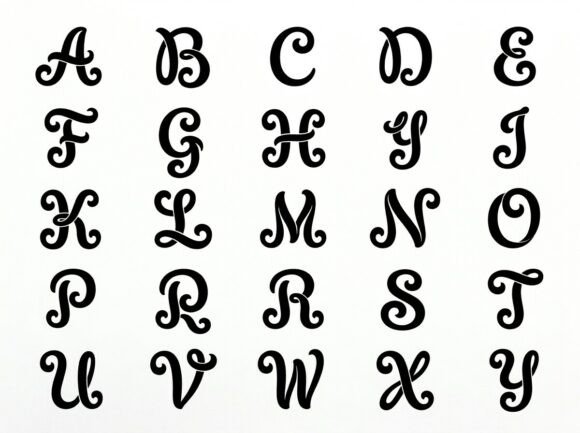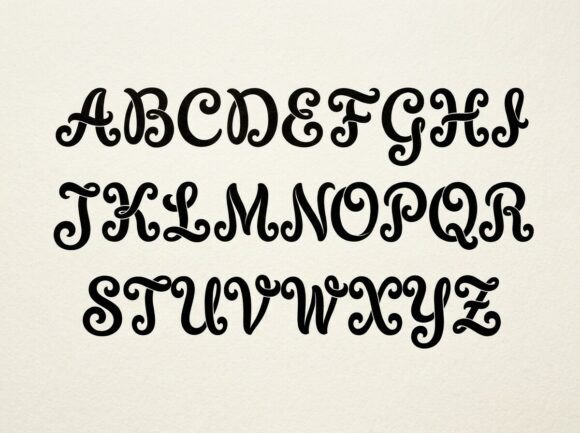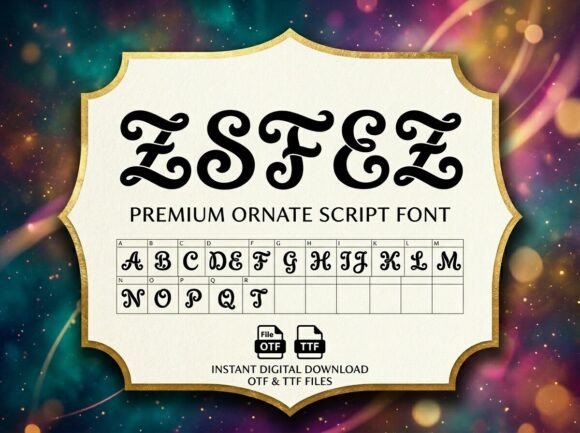
Introducing Esfez Font: The Epitome of Sophisticated Artisanal Charm
In the realm of typography, few fonts manage to capture the essence of timeless elegance and sophistication. Esfez, a premium ornate script font, stands out as a masterpiece of artisanal charm, designed to elevate your visual communication to unprecedented heights of refinement and luxury. With its gracefully curling letterforms, sweeping swashes, and intricate loops, Esfez embodies the effortless beauty of master-level calligraphy, making it an extraordinary choice for discerning designers and crafters.
The Art of Elegance: Design Characteristics of Esfez
Esfez’s design is characterized by its balanced visual weight and polished posture, which together create a sophisticated yet approachable aesthetic. The font’s gracefully curling letterforms are adorned with sweeping, rhythmic swashes and intricate loops, meticulously crafted to evoke the fluidity and expressiveness of hand-written calligraphy. Each letter in Esfez is a testament to the art of typography, showcasing a level of detail and craftsmanship that sets it apart from more conventional fonts.
Applications of Esfez: Elevating Brand Identity and Design
Given its luxurious and elegant appearance, Esfez is perfectly suited for a variety of high-end applications. For luxury boutique branding, the font offers a distinctive and memorable visual identity that can help brands stand out in a crowded market. In bespoke wedding stationery, Esfez adds a touch of romance and sophistication, making it ideal for couples seeking to make their special day truly unforgettable. High-end lifestyle magazines and chic social media headers also benefit from Esfez’s refined aesthetic, which can instantly elevate the perceived value and prestige of any publication or online presence.
Bringing Polished Artisanal Prestige to Your Designs
Esfez does more than just add a touch of elegance to your designs; it infuses them with a sense of polished artisanal prestige and human-centric grace. In an era where digital communication often feels impersonal and rushed, Esfez offers a refreshing alternative, allowing designers and crafters to create visual communications that resonate on a deeper, more personal level. Whether you’re aiming to create a signature look for a premium brand identity or simply seeking to add a touch of sophistication to your projects, Esfez delivers a level of refinement and luxury that is hard to match.
Why Choose Esfez for Your Typography Needs?
There are several reasons why Esfez stands out as a top choice for designers and crafters seeking to elevate their typography:
• Timeless Elegance: Esfez’s classic design ensures that your projects will remain stylish and relevant for years to come, avoiding the fleeting nature of trendier fonts.
• Versatility: Despite its ornate nature, Esfez is surprisingly versatile, suitable for a wide range of applications from luxury branding to personal stationery.
• Attention to Detail: The font’s intricate loops and swashes demonstrate a level of craftsmanship that is sure to impress, adding a personal touch to your designs.
• Sophistication and Approachability: Esfez strikes the perfect balance between sophistication and approachability, making it ideal for brands and individuals seeking to convey a sense of luxury without appearing inaccessible.
Esfez is more than just a font; it’s a statement of elegance, sophistication, and refined taste. For designers and crafters seeking to create visual communications that exude a sense of luxury and artisanal charm, Esfez offers an unparalleled solution. With its timeless design, versatile application, and meticulous attention to detail, Esfez is poised to become the go-to choice for those who demand the very best. Experience the pinnacle of sophisticated artisanal charm with Esfez, and discover a new standard of typographic excellence.